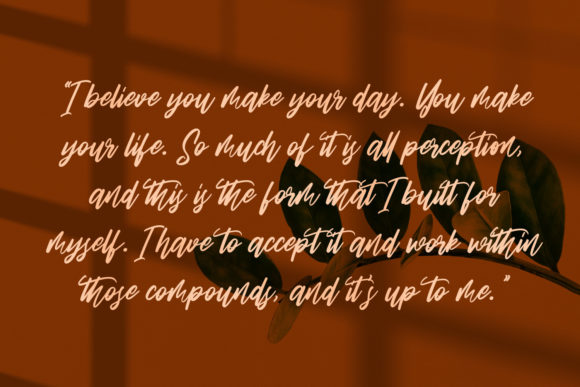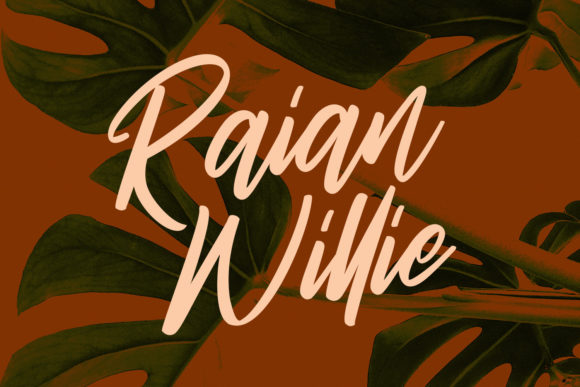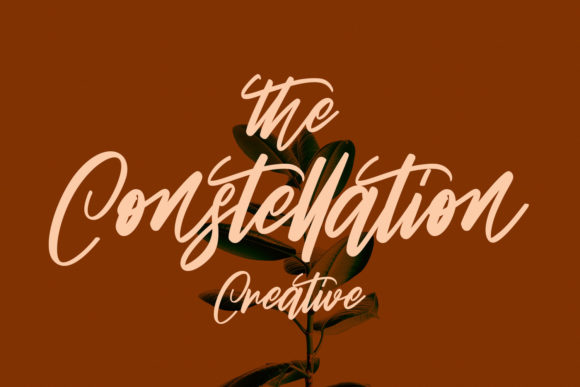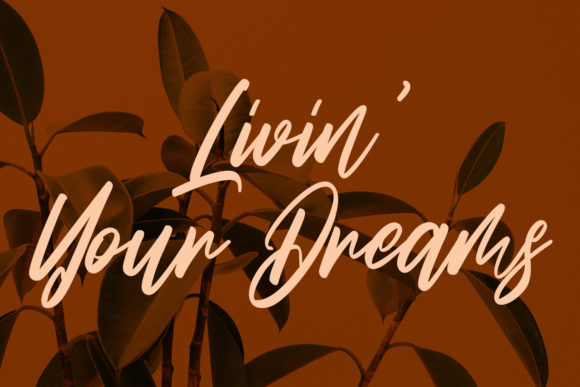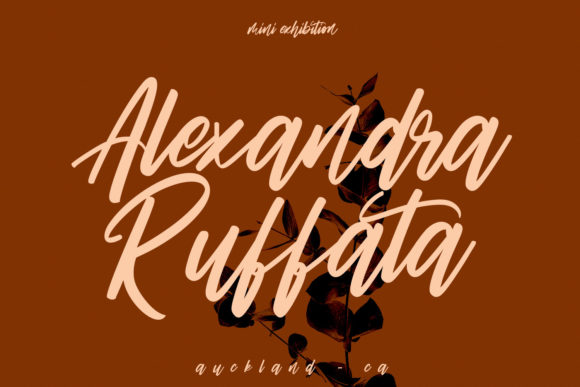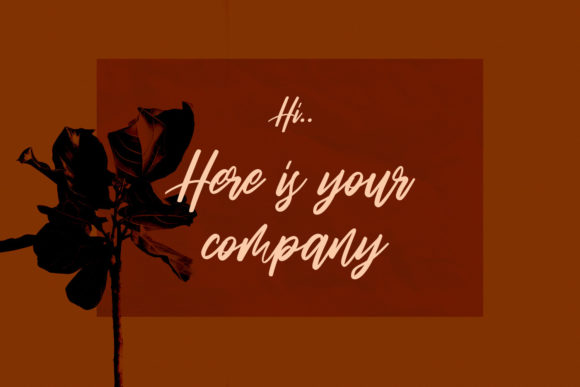
Introducing Almond Nuts Font: The Perfect Casual Signature Script Font
Are you tired of using the same old fonts in your designs? Do you want to add a touch of elegance and sophistication to your projects? Look no further than Almond Nuts Font, a beautiful and refreshing casual signature script font that’s perfect for designers and crafters alike.
What is Almond Nuts Font?
Almond Nuts Font is a carefully crafted font designed to bring a unique and stylish touch to your designs. This font is perfect for those who want to add a personal and creative element to their work. With its flowing script and elegant lines, Almond Nuts Font is sure to make your designs stand out from the crowd.
Key Features of Almond Nuts Font
- Casual Signature Script Font: Almond Nuts Font is a casual signature script font that’s perfect for adding a personal touch to your designs.
- Beautiful and Refreshing: This font is designed to bring a beautiful and refreshing look to your designs, making it perfect for a variety of projects.
- Elegant Lines: The elegant lines of Almond Nuts Font make it perfect for designs that require a touch of sophistication.
- Unique and Stylish: This font is designed to be unique and stylish, making it perfect for designers and crafters who want to add a creative element to their work.
Uses of Almond Nuts Font
Almond Nuts Font is a versatile font that can be used in a variety of projects, including:
- Branding and Logo Design: Use Almond Nuts Font to create a unique and stylish logo for your brand.
- Stationery and Invitations: Add a touch of elegance to your stationery and invitations with Almond Nuts Font.
- Web Design: Use Almond Nuts Font to add a personal and creative element to your website.
- Crafting and Scrapbooking: This font is perfect for crafters and scrapbookers who want to add a unique and stylish touch to their projects.
Benefits of Using Almond Nuts Font
There are many benefits to using Almond Nuts Font in your designs, including:
- Unique and Creative: Almond Nuts Font is a unique and creative font that will help your designs stand out from the crowd.
- Elegant and Sophisticated: This font adds an elegant and sophisticated touch to your designs, making it perfect for a variety of projects.
- Easy to Read: Almond Nuts Font is easy to read, making it perfect for designs that require a clear and concise message.
- Versatile: This font is versatile and can be used in a variety of projects, from branding and logo design to web design and crafting.
Tips for Using Almond Nuts Font
Here are some tips for using Almond Nuts Font in your designs:
- Use it Sparingly: Use Almond Nuts Font sparingly to add a touch of elegance and sophistication to your designs.
- Pair it with Other Fonts: Pair Almond Nuts Font with other fonts to create a unique and stylish look.
- Keep it Simple: Keep your design simple and clean to ensure that Almond Nuts Font is the focal point.
Almond Nuts Font is a beautiful and refreshing casual signature script font that’s perfect for designers and crafters alike. With its elegant lines and unique style, this font is sure to add a touch of sophistication and elegance to your designs. Whether you’re working on a branding project, creating a website, or crafting a scrapbook, Almond Nuts Font is the perfect choice.